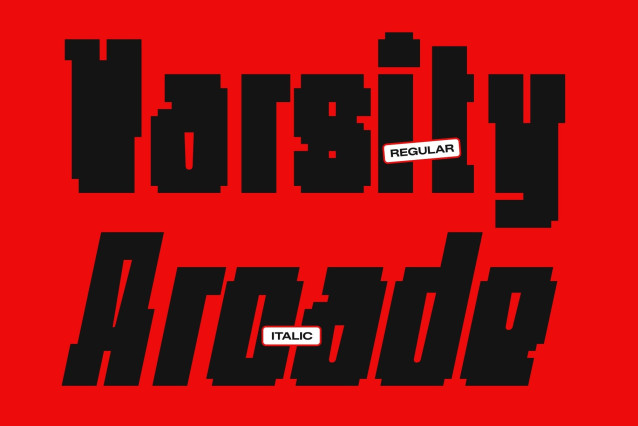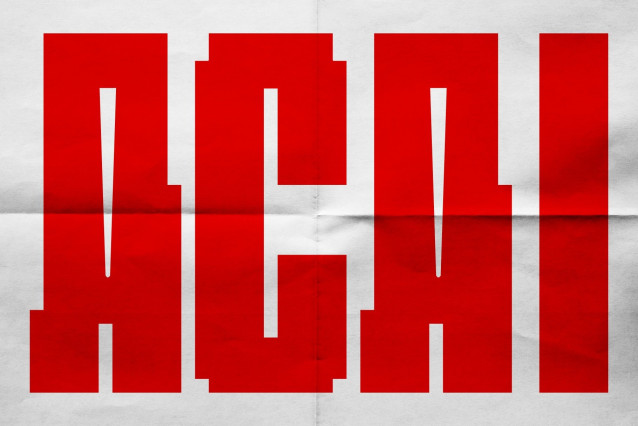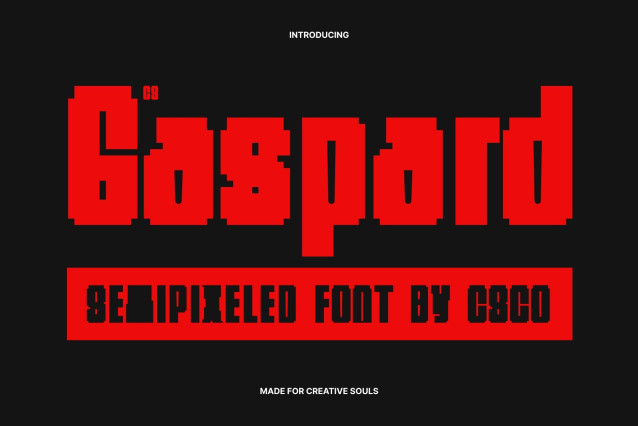
CS Gaspard Semipixel – Bold Condensed Sans Serif Font: Where Industrial Precision Meets Smooth Digital Energy
Compact Powerful Forms with Modern Urban Character
This font is a bold condensed sans serif font designed to deliver maximum visual impact in tight spaces. Its narrow proportions and strong geometric structure create a commanding appearance filled with modern energy, industrial precision, and contemporary style. Every character is crafted to maintain clarity while maximizing presence, making the font perfect for bold headlines and compact visual compositions.
Semipixel Aesthetic with Smooth Pixel Refinement
Combining pixel-inspired square forms with modern curves and refined detailing, this font offers a smoother and more sophisticated appearance than traditional rigid pixel fonts. The semipixel construction softens the geometry while preserving its retro-digital identity, creating a sleek balance between futuristic technology and modern readability.